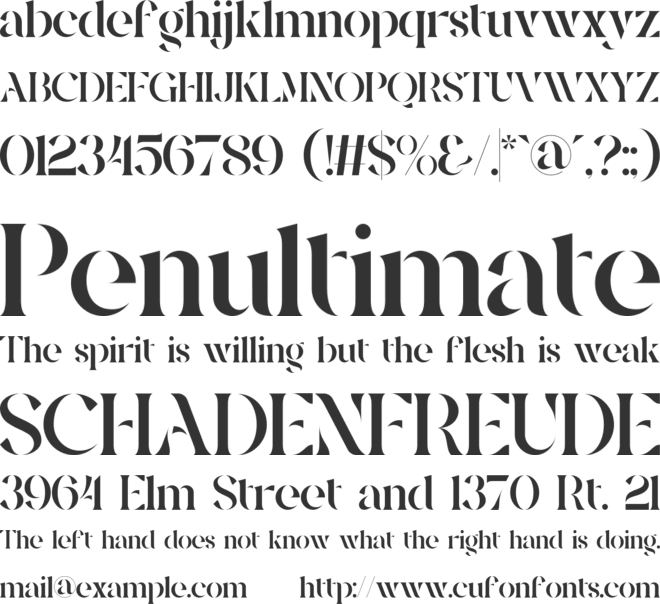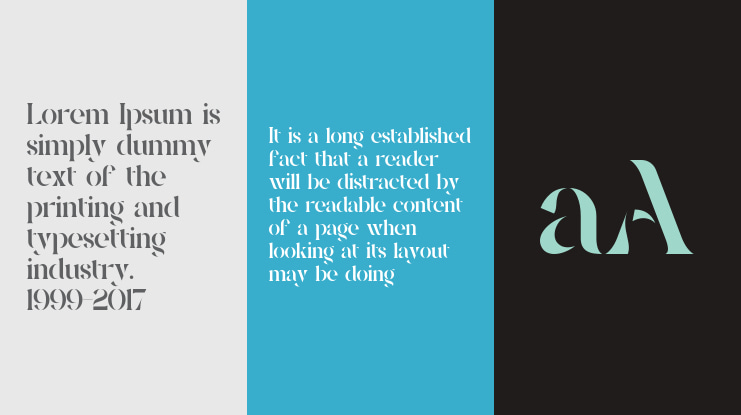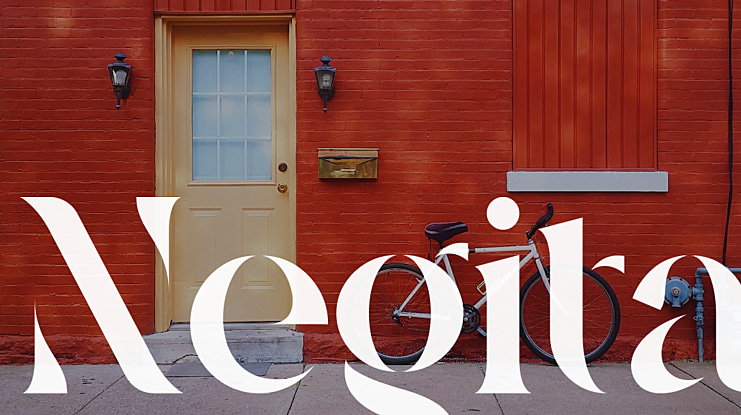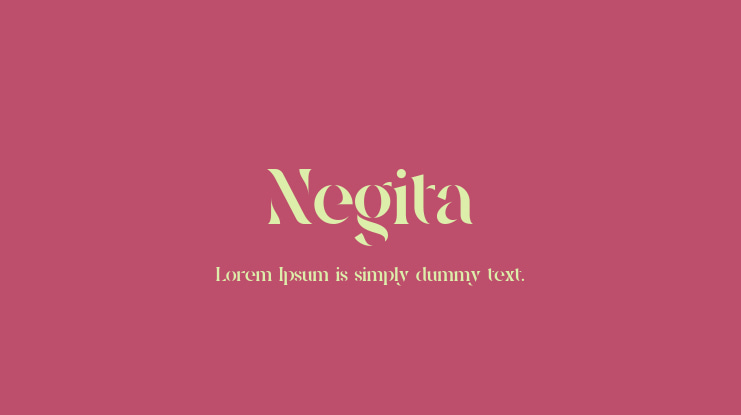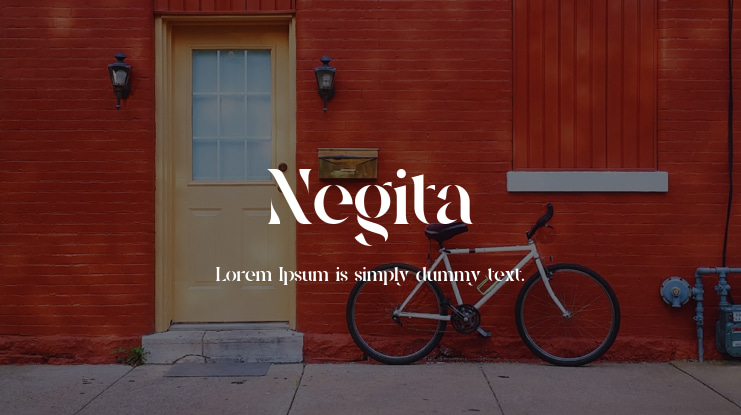
Negita Font
Negita Stencil Serif is a balanced, smooth, elegant and stylish stencil serif font. He has a beautiful character. It fits perfectly with invitation card designs, company logos, movie titles, movie names, business cards, book titles, brand names and various other designs. Negita Stencil Serif is a subtle stencil serif font that exudes sophistication and elegance. Its stylish alternations and ligatures make this font the perfect partner for any project.